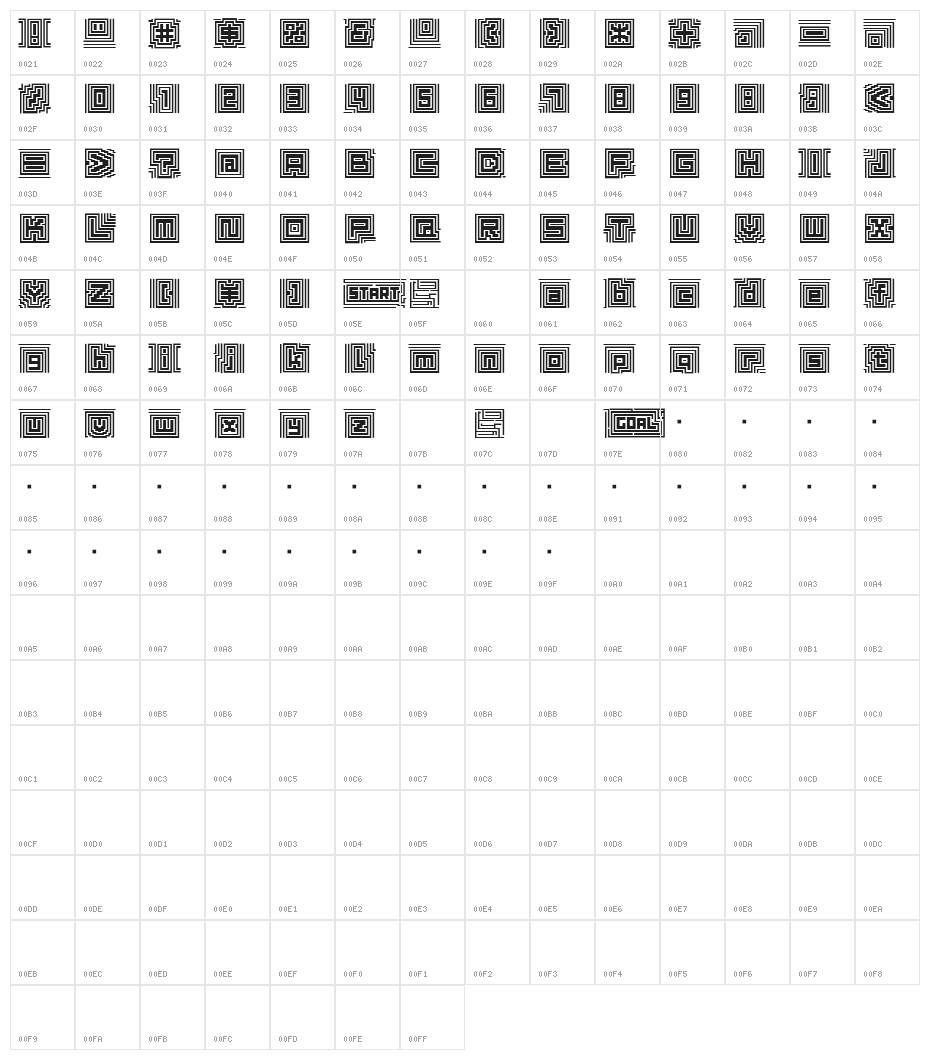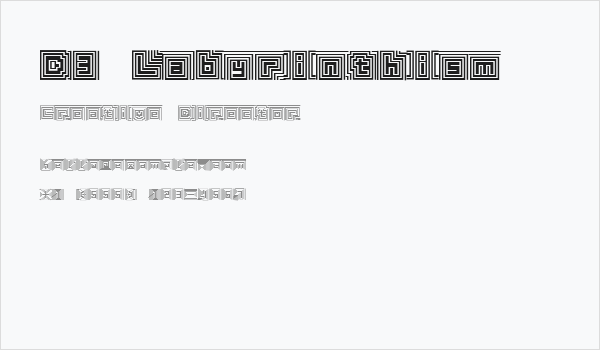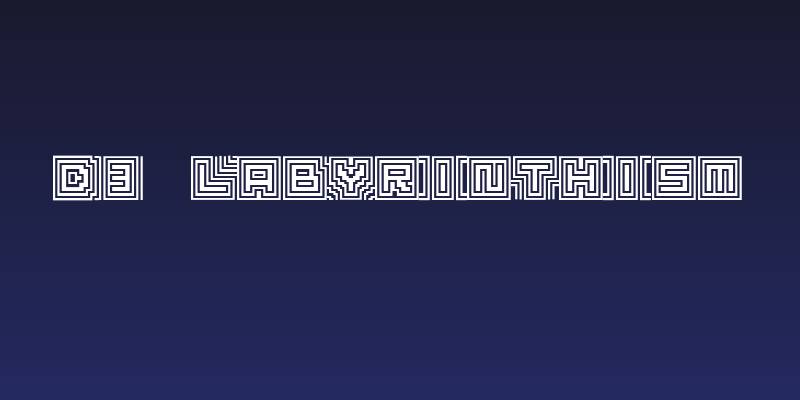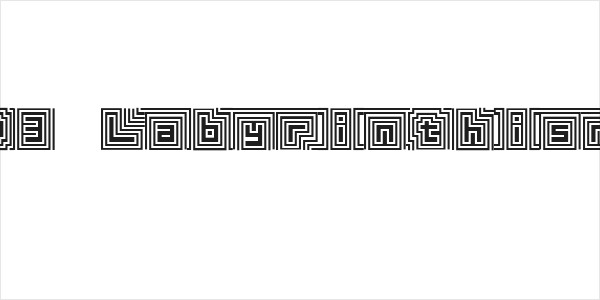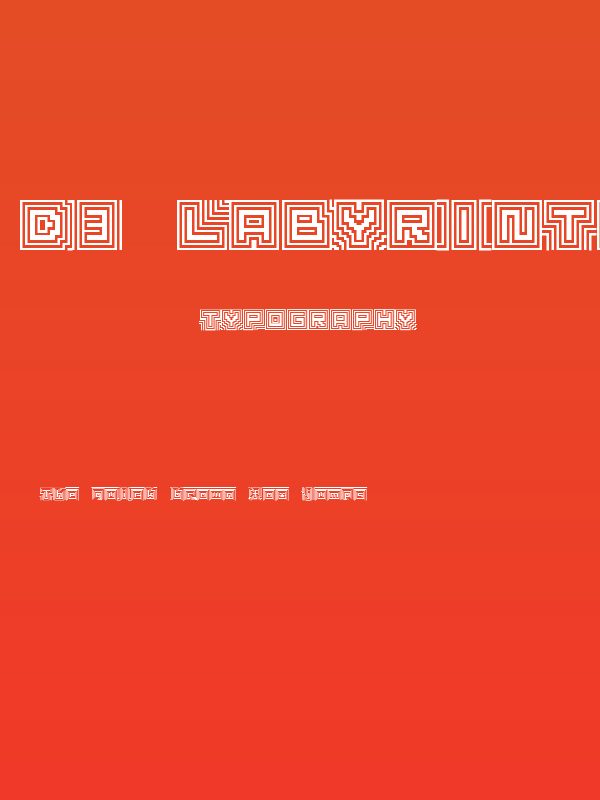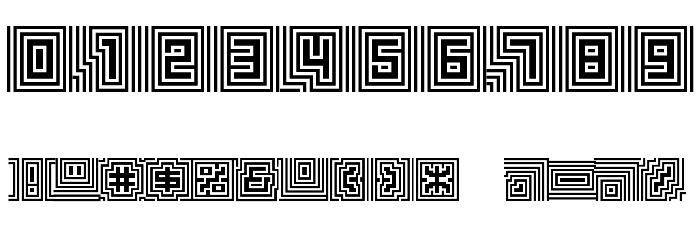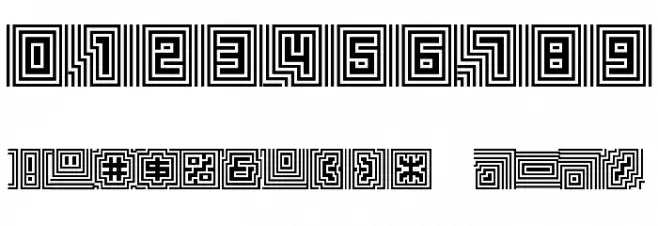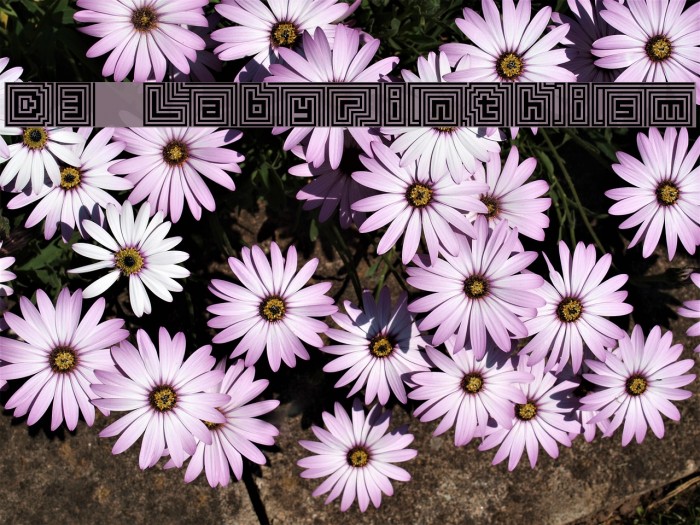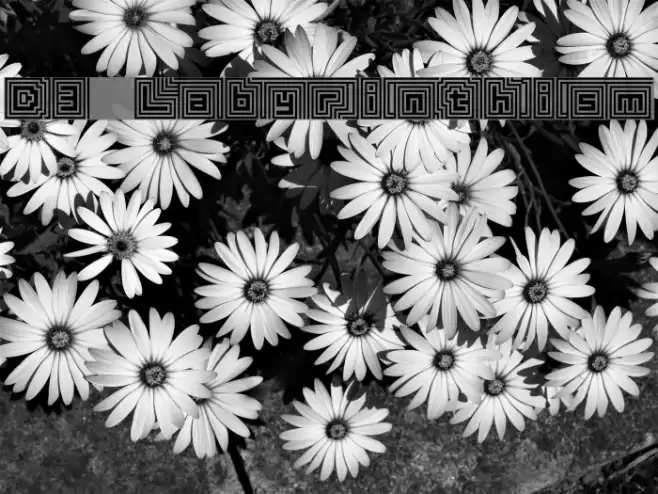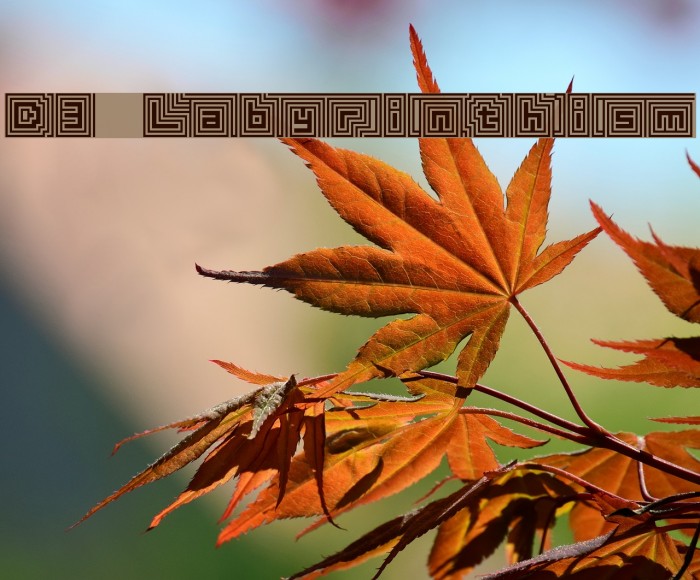
D3 Labyrinthism Font
D3 Labyrinthism Description
This font features a unique and intricate design, reminiscent of a labyrinth or maze. Each character is composed of multiple layers of lines, creating a complex and visually engaging pattern. The geometric style is consistent across uppercase and lowercase letters, as well as numbers and special characters. The design is bold and striking, making it ideal for projects that require a strong visual impact. The characters are evenly spaced, ensuring readability despite the intricate design. This font is perfect for creative projects that aim to capture attention and convey a sense of mystery or complexity.
| Proposed Projects | Ideal for posters, album covers, video game titles, and branding that requires a bold, artistic touch. |